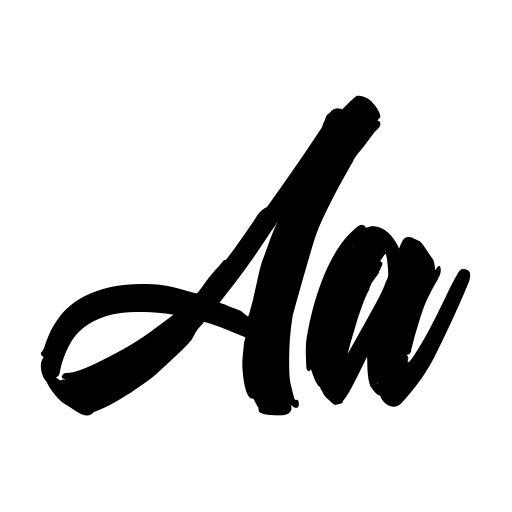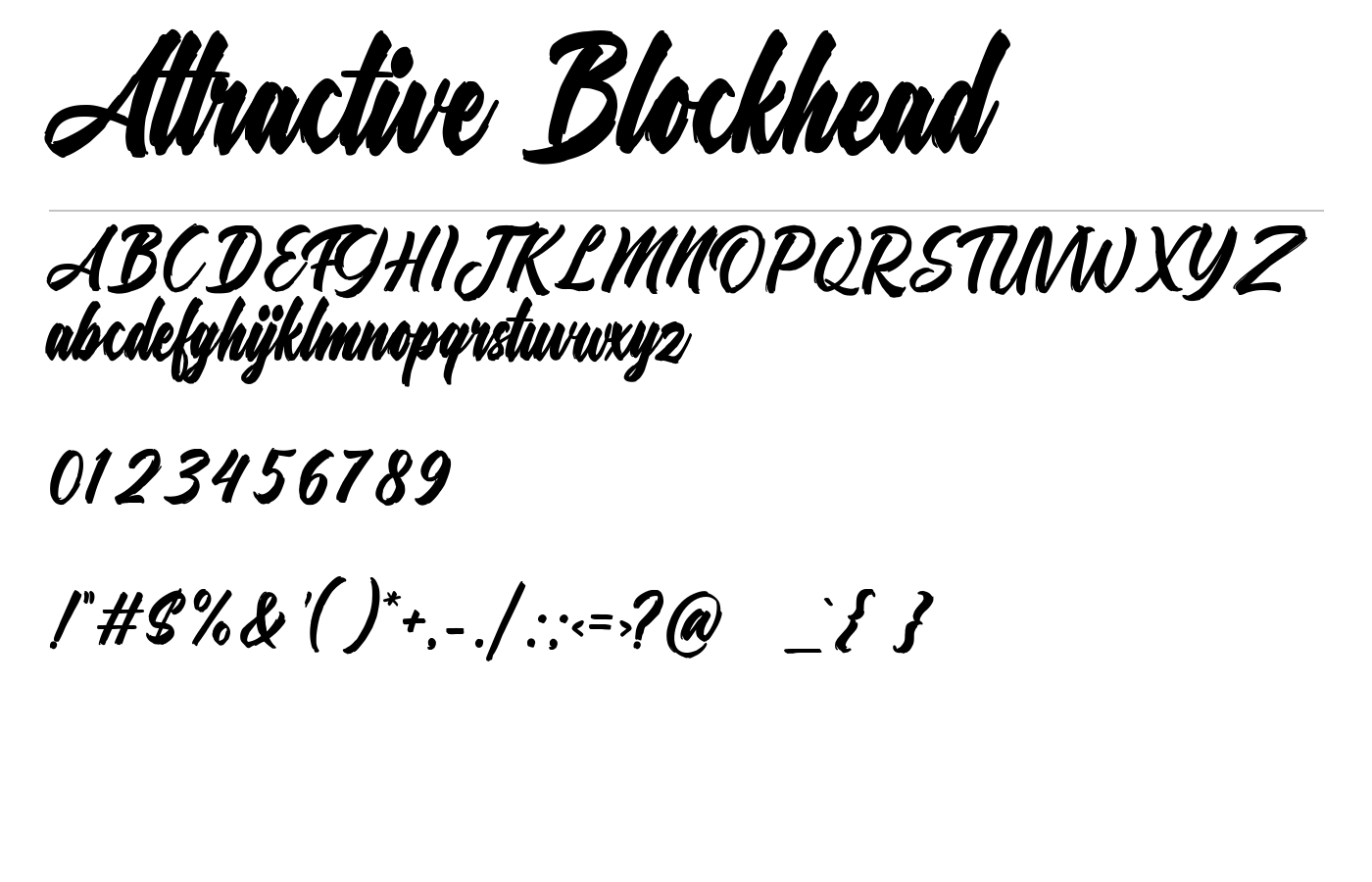
Attractive Blockhead is a bold, brush-style script font with a lively and dynamic feel, featuring smooth, flowing strokes that give it a friendly and energetic personality. Its strong contrast and casual flair make it ideal for eye-catching headlines, branding, and packaging where a playful yet confident look is desired. Perfect for projects that want to combine a hand-crafted, artistic vibe with bold readability.
Attractive Blockhead Font
About Attractive Blockhead Font
| Font family | Attractive Blockhead Font |
| Designer | Octotype |